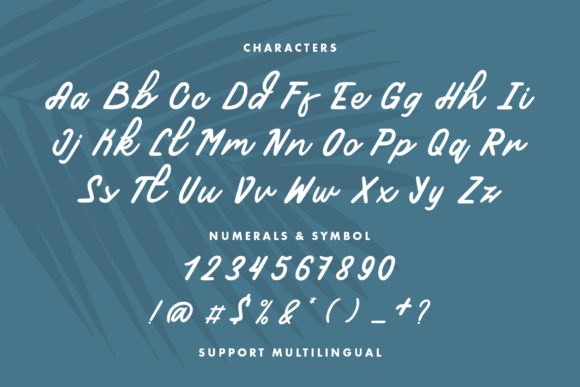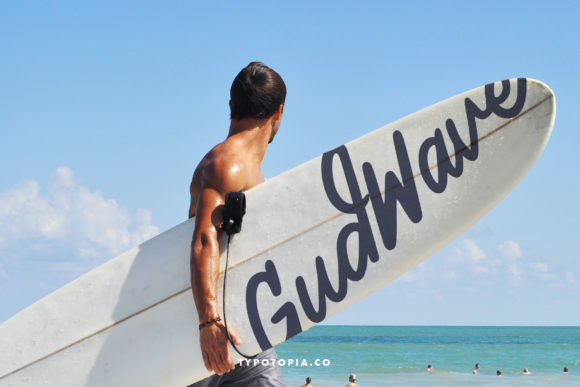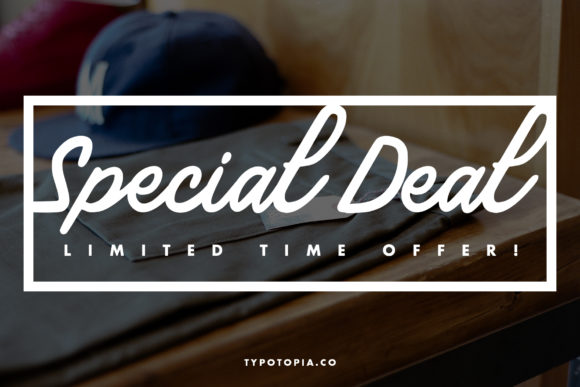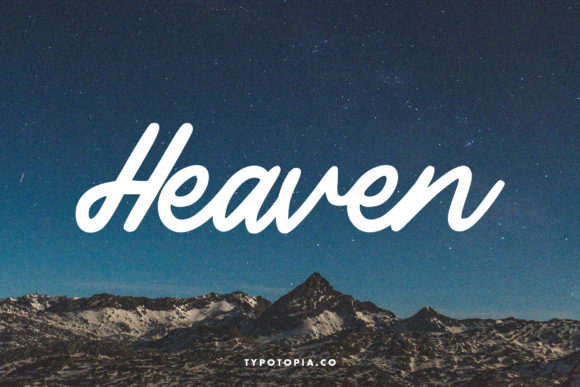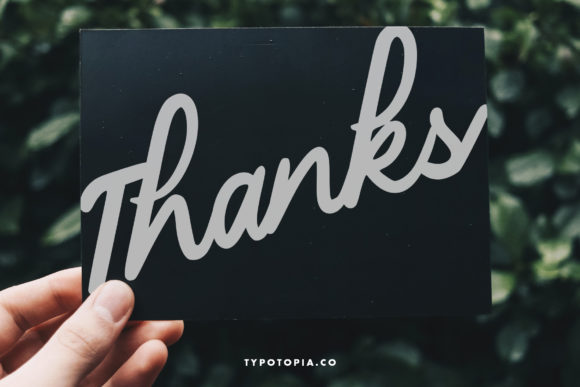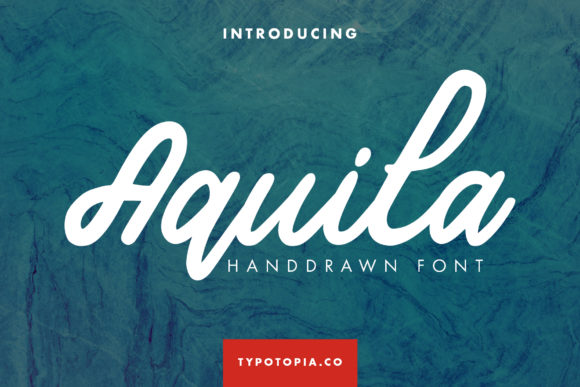
The Designer’s Delight: A Deep Dive into the Aquila Font
I’ll never forget the time I was working on a project for a client who needed a custom greeting card design. I had all the elements ready – the graphics, the layout, and the content – but something was missing. It wasn’t until I stumbled upon the Aquila Font that the design truly came alive. Created with the help of a brush pen, Aquila is a beautiful handwritten font that added a personal touch to my design. In this article, I’ll share my experience with Aquila, its features, and how to make the most of it in various design platforms.
An Honest Review of Aquila Font
What I Love About Aquila ✨
• 💫 Unique and Personal Touch: Aquila’s handwritten style gives any design a personal and unique feel, making it perfect for greeting cards, crafting, and digital designing.
• ✅ Versatile: Whether you’re working on a presentation, a craft project, or a digital design, Aquila fits right in.
• 🎨 Artistic and Expressive: The font’s brush-pen created look adds an artistic flair to any project.
• ⚠️ Legibility at Small Sizes: Like many handwritten fonts, Aquila may lose legibility when used at very small sizes. It’s best used at larger sizes where its details can shine.
• 😐 Not Suitable for Body Text: Due to its decorative nature, Aquila is not ideal for long body text. It’s better suited for headings, titles, or short messages.
The Story Behind Aquila: Designer Inspiration
Aquila was born from a designer’s desire to create a font that captures the warmth and personality of handwritten text. Inspired by the fluid strokes of a brush pen, Aquila’s creator aimed to produce a font that feels both modern and nostalgic. The result is a font that brings a human touch to any design, making it perfect for a wide range of creative projects.
Q: Is Aquila suitable for body text?
A: No, Aquila is best used for headings, titles, or short messages due to its decorative nature. For body text, consider a more legible font.
Q: Does Aquila support OpenType features?
A: Yes, Aquila supports OpenType features, including glyphs and stylistic alternates. This allows for greater flexibility and customization in your designs.